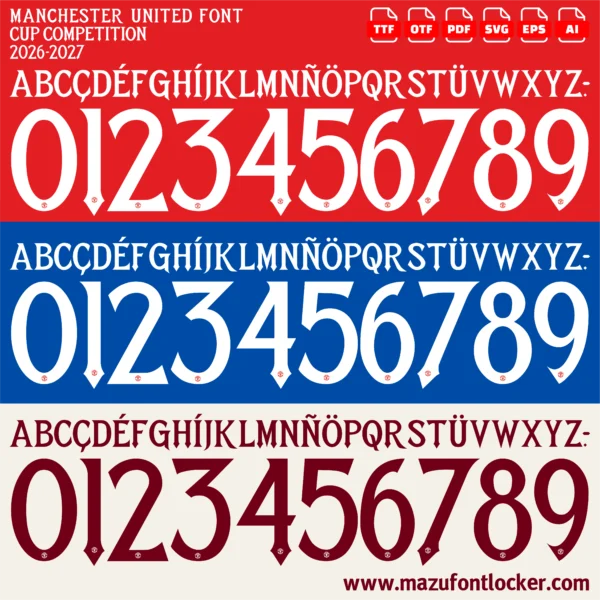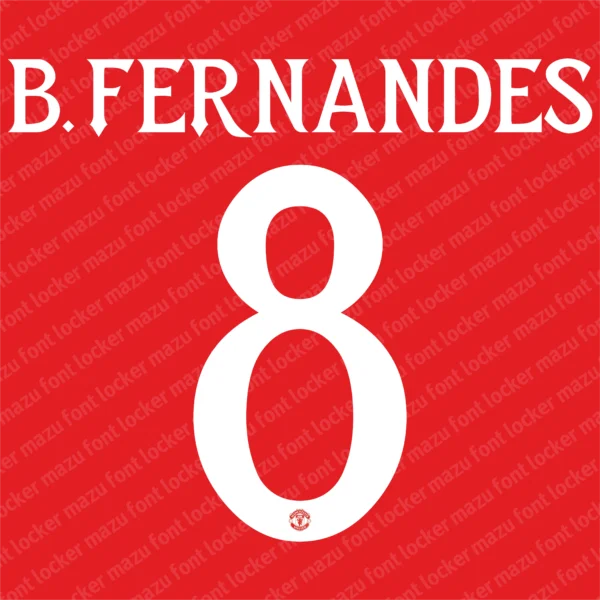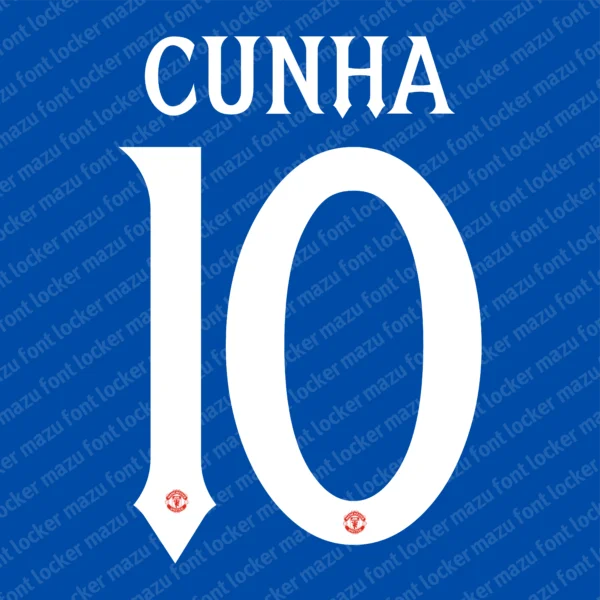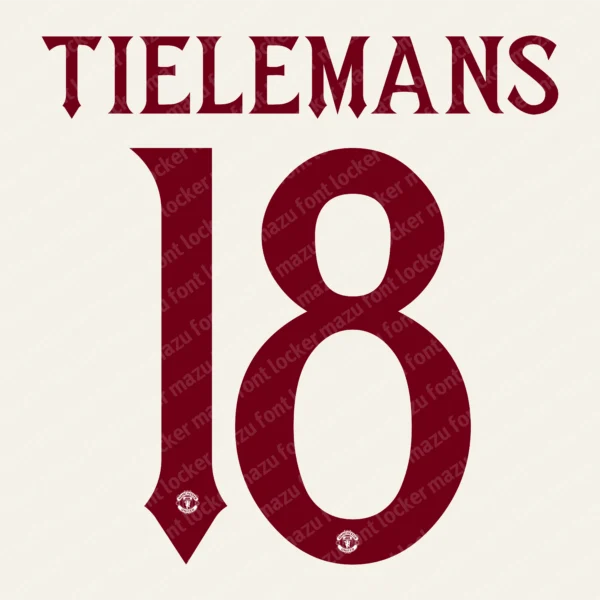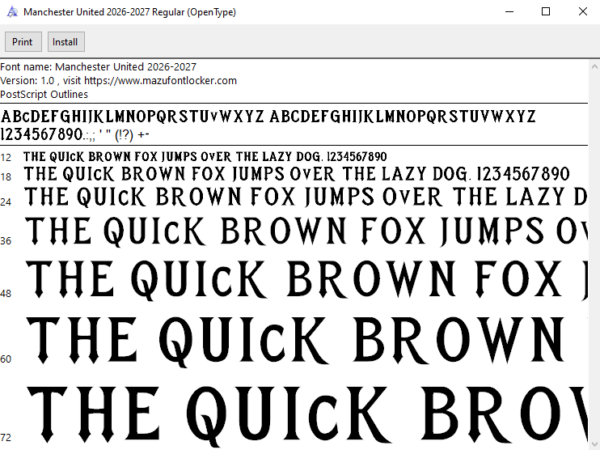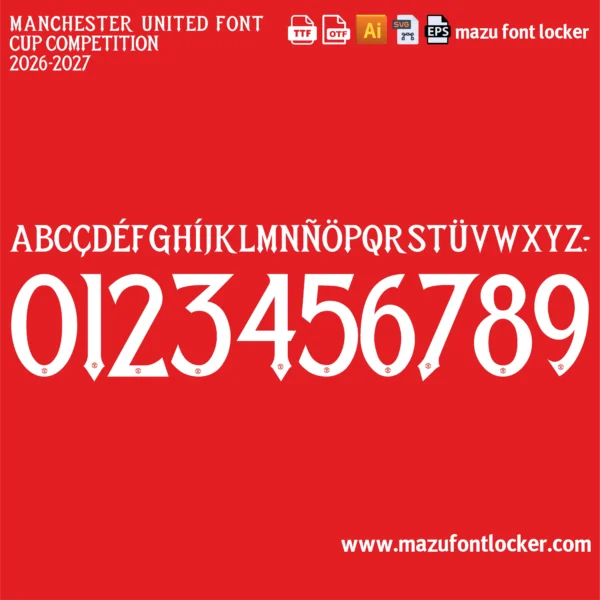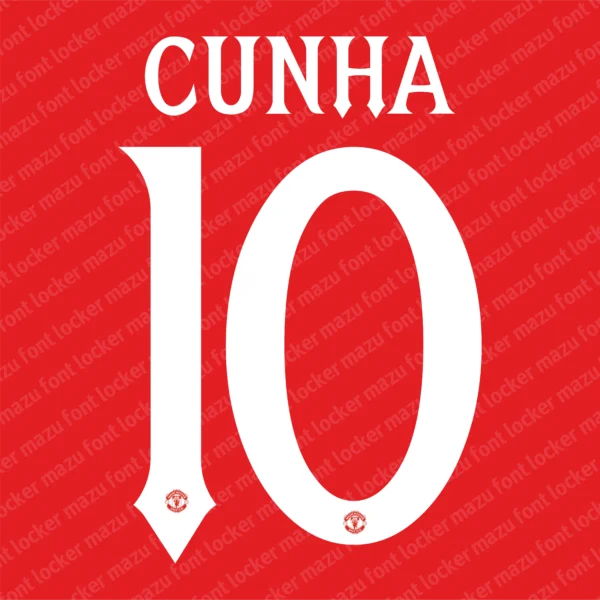
Manchester United 2026-2027 Font – Epic Red Devils Masterpiece
Download the Manchester United 2026-2027 Font Vector (AI, EPS, SVG, PDF, OTF, TTF) and unleash the fiery, iconic, and fearless match typography that will roar across the pitch for the Red Devils in the 2026-2027 season. This font channels the bold and commanding lettering that embodies the legendary red warrior spirit of Manchester United, delivering unmatched authenticity, raw passion, and Old Trafford-level intensity for premium jersey mockups and football designs.
Manchester United 2026-2027 Font – Authentic Red Devils Typeface
The Manchester United 2026-2027 Font is a premium typeface that accurately recreates the official match lettering worn by Manchester United during the 2026-2027 Premier League season. This high-quality font kit captures the bold, classic, and powerful typography that represents the club’s rich heritage and ambition.
Designed for professional designers and passionate Manchester United fans, the Manchester United 2026-2027 Font delivers perfect authenticity for creating realistic jersey mockups, fan merchandise, matchday posters, social media graphics, and much more. It blends beautifully with the club’s iconic red kits from this exciting era.
This font stands out because of its sharp details and strong identity. Every letter and number is crafted to match the exact style used on the players’ shirts during the 2026-2027 season. Whether you are making realistic kit templates or dynamic football content, the Manchester United 2026-2027 Font gives your designs that authentic Red Devils look.
The letterforms in the Manchester United 2026-2027 Font are tall, bold, and highly readable. The strokes have a strong and controlled weight that looks powerful on the back of jerseys while maintaining excellent clarity and modern elegance.
The numerals use bold curves and firm edges, giving them a confident and premium appearance. This design ensures great legibility whether used in large print formats, digital mockups, or video content.
- Full uppercase A–Z and numbers 0–9 in authentic Manchester United 2026-2027 style
- Special Manchester United crest glyph for accurate shirt number detailing
- Multilingual Latin character support including diacritics
- Includes the exact crest glyph placement used under player numbers